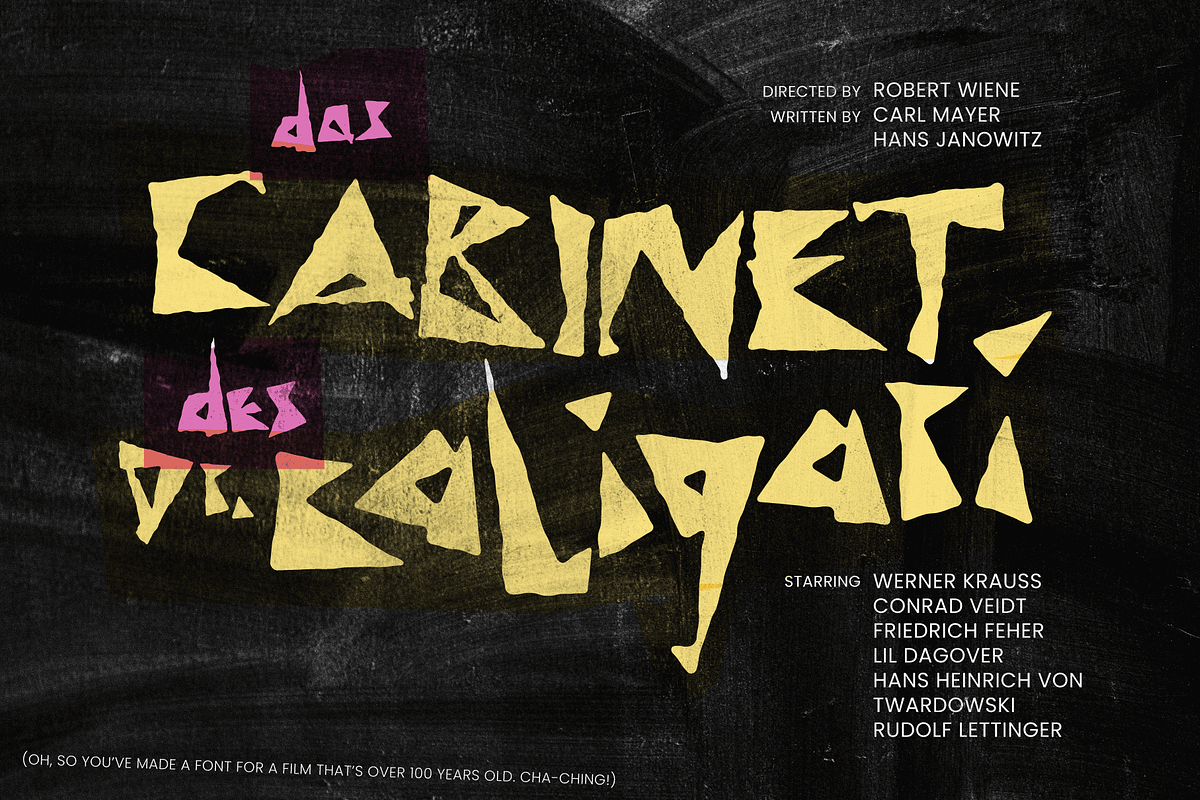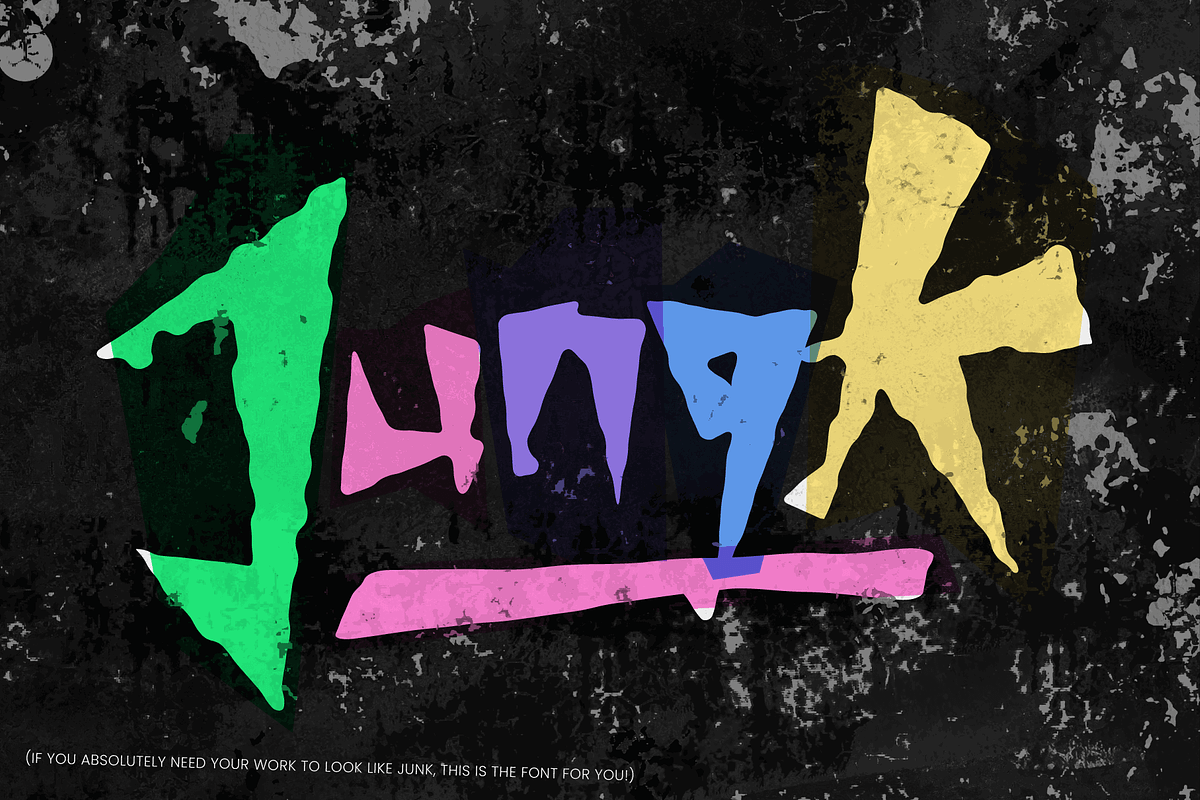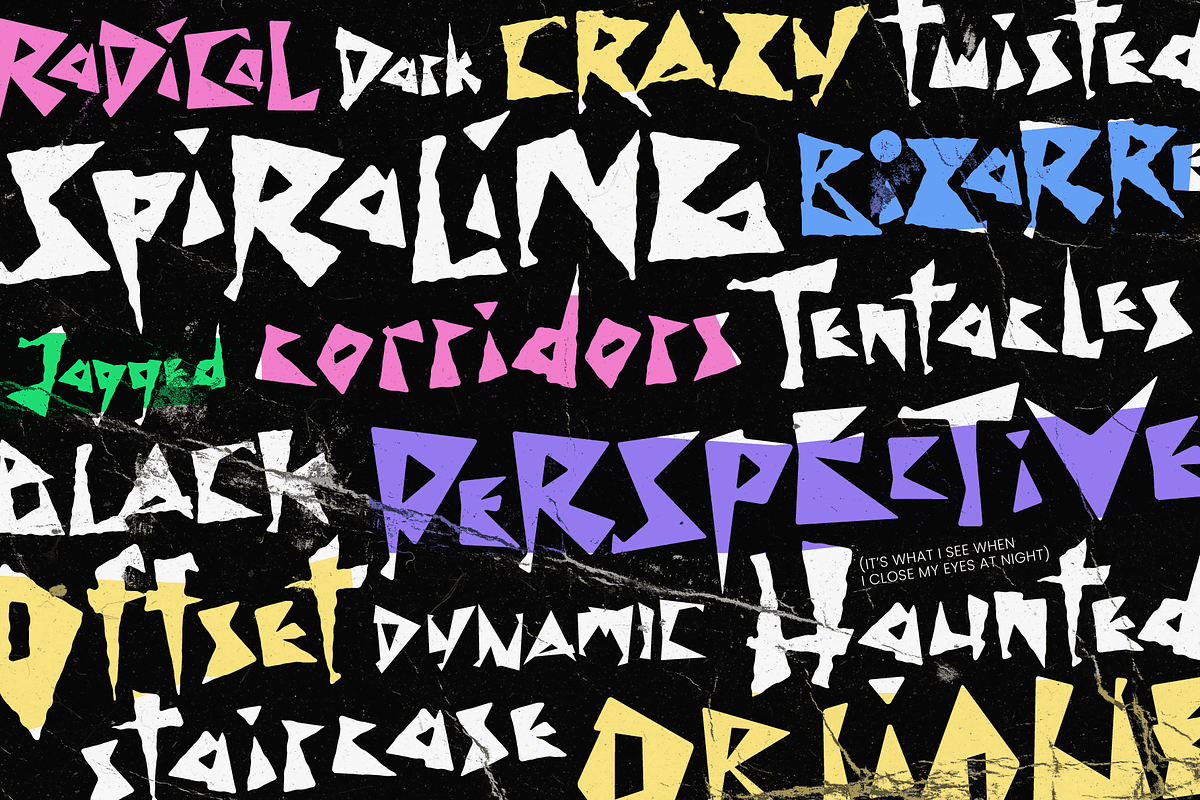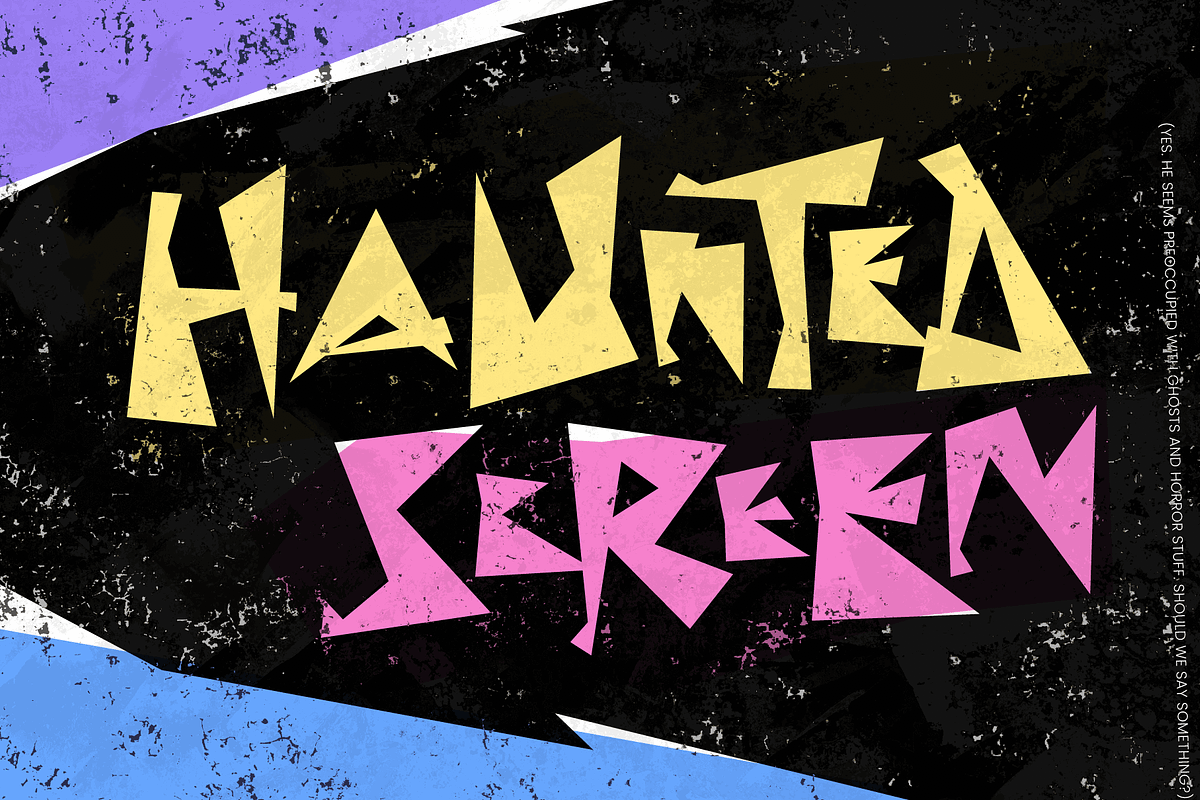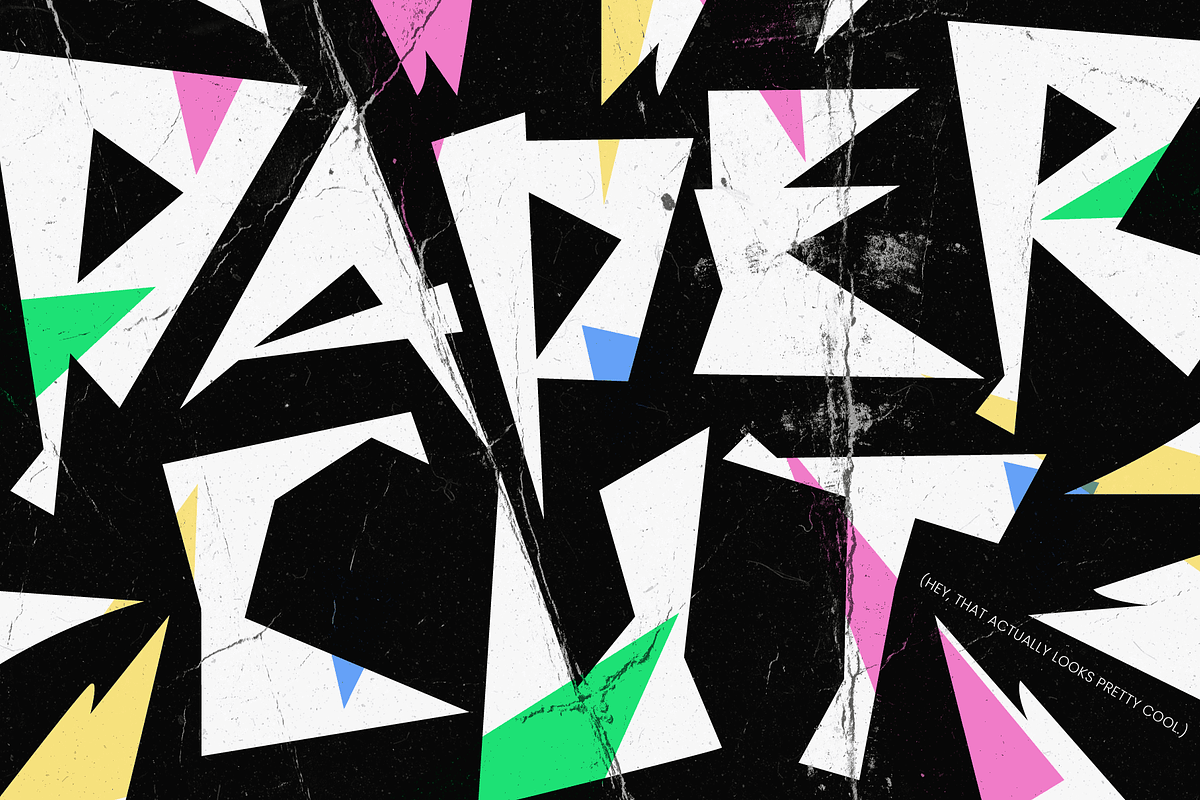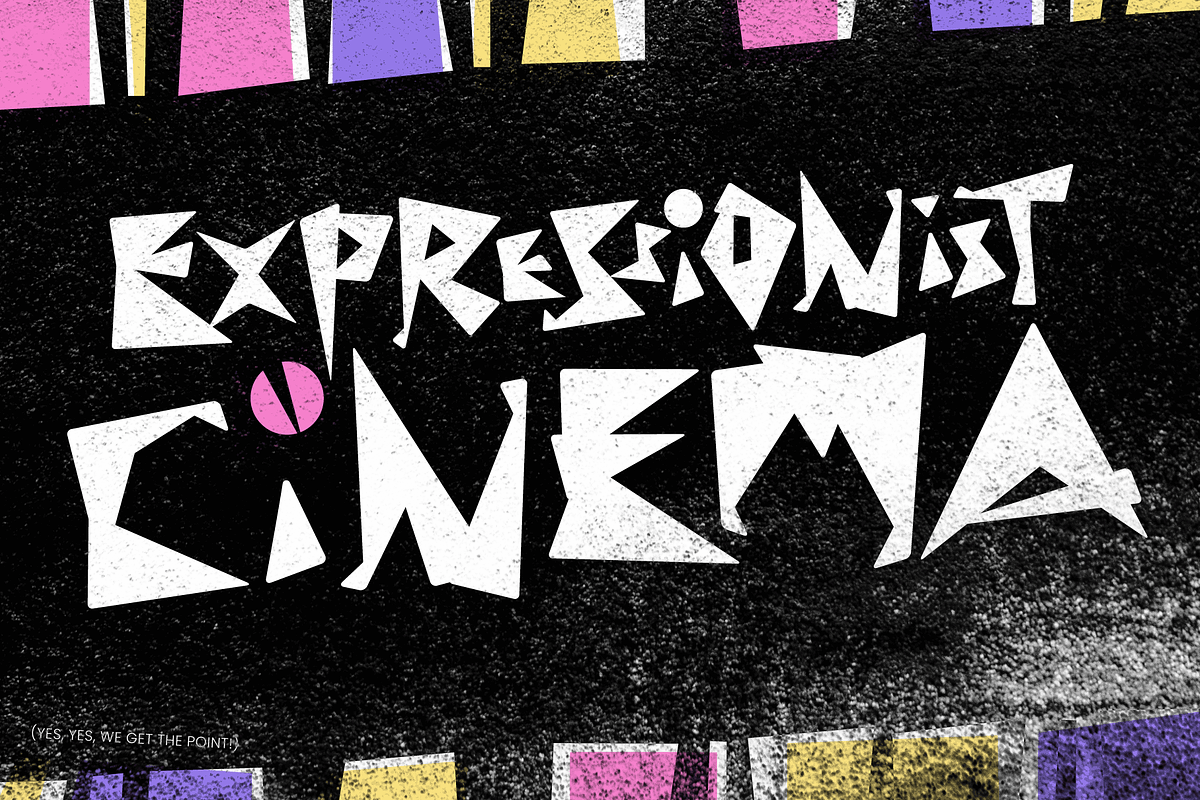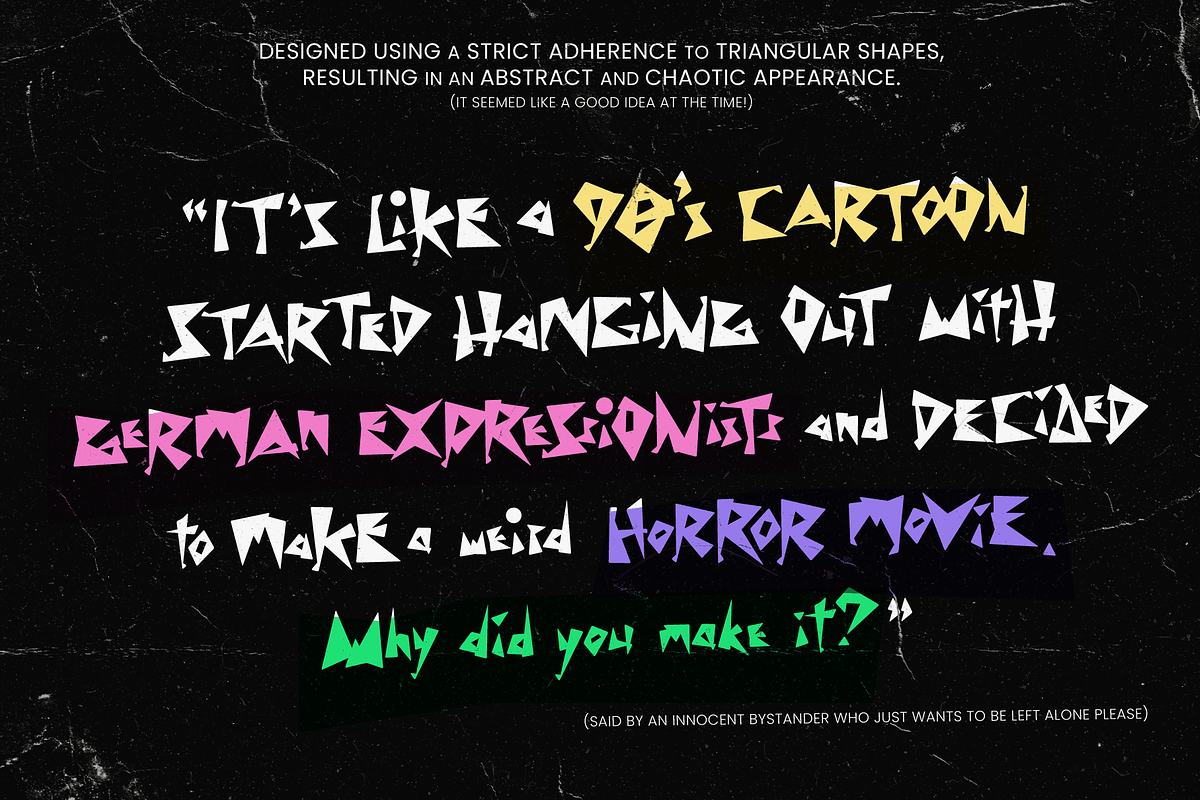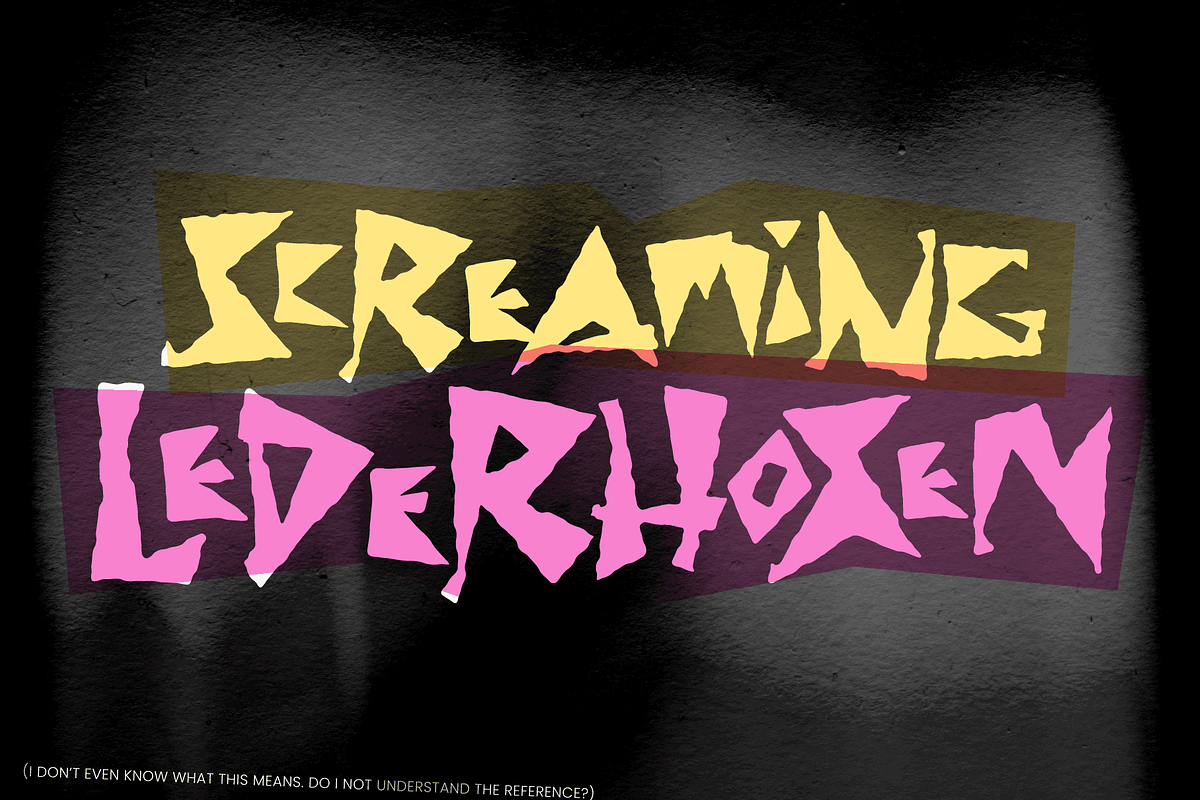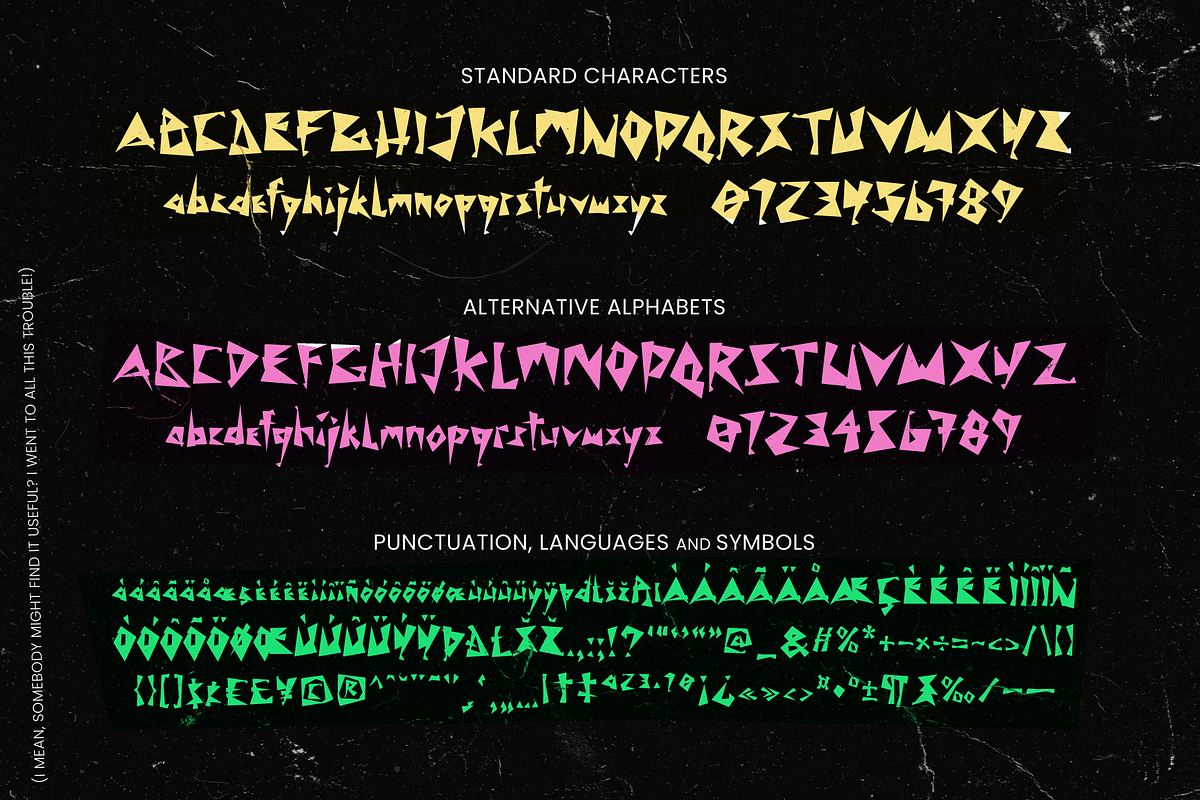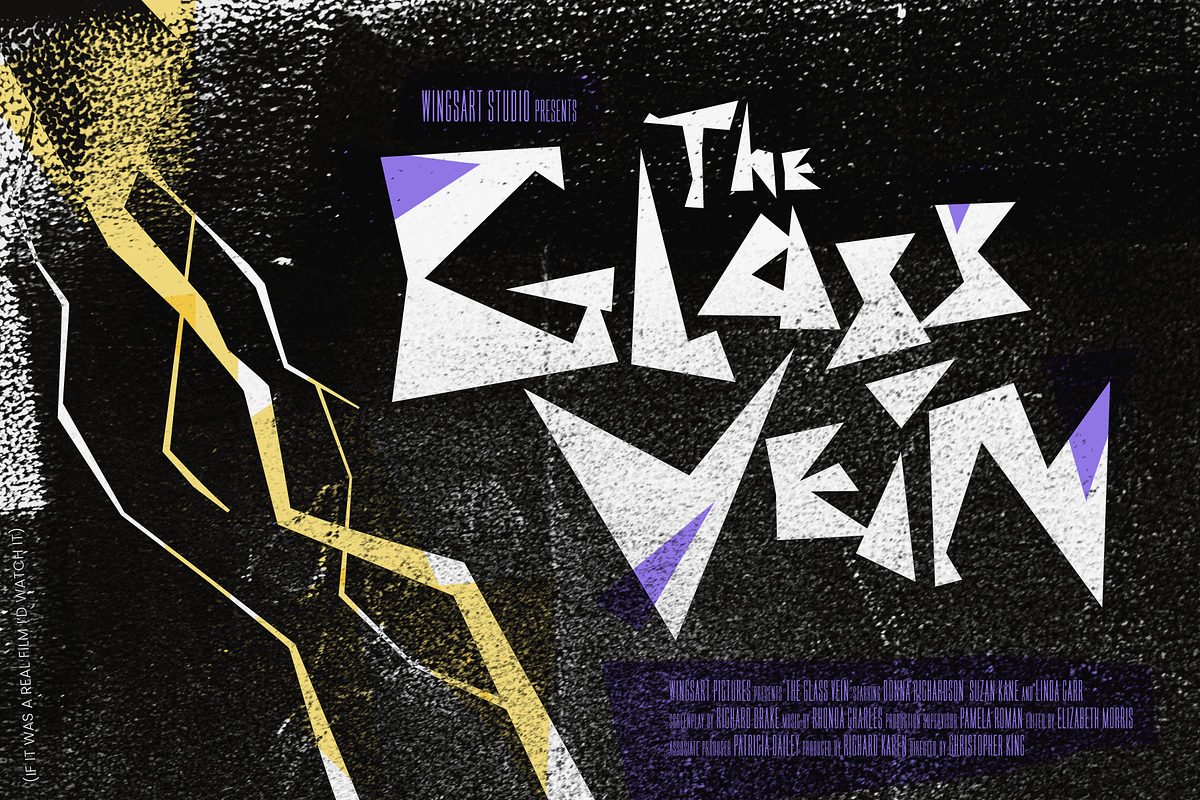
Shock Value - An Expressionist Font
Shock Value - An Expressionist, Cartoon-ish, Horror Display Font.
Introducing a font that absolutely nobody was waiting for, Shock Value! What started as a misguided experiment with triangular shapes grew into a display font reminiscent of German Expressionist cinema, 90s cartoons, and the inevitable dash of horror.
While its appeal is certainly limited, it might suit projects with an irreverent sense of humour, or something that needs to appear chaotic, unhinged and hand-made. If you needed a font that feels like a cold slap in the face with a fish, you've found it!
I even went to the effort to create all the uppercase and lowercase characters, numerals, multilingual support, and a complete set of alternatives for all five styles - I must be nuts! If I can remain positive for a moment, (like a parent to a child who's just been shown an indecipherable scribble) I'd say that it does look cool used in title designs, when mixing up the sizes and using the angular features to create interesting character combinations. Why not laugh/see for yourself in my visuals! Enjoy!